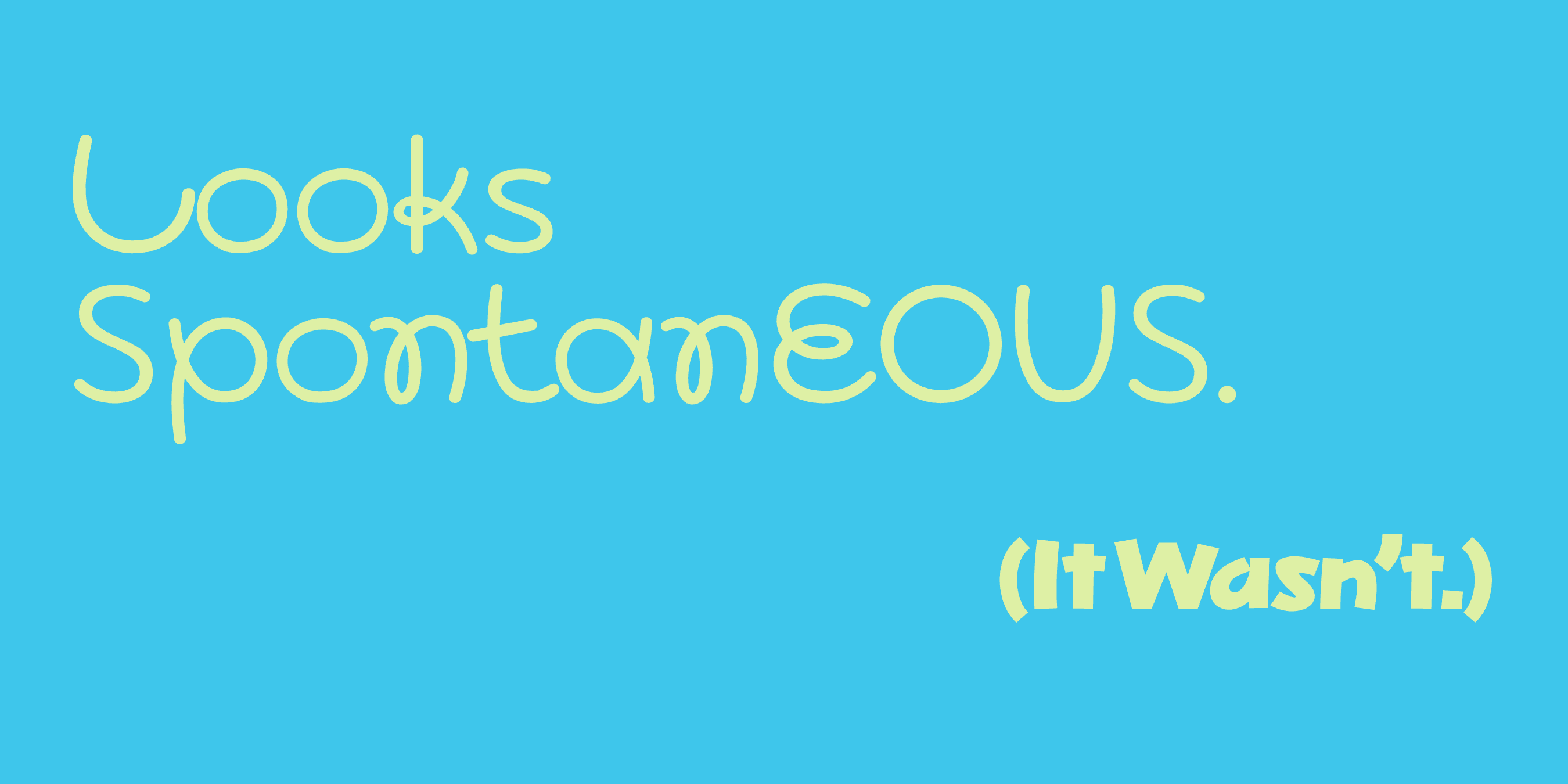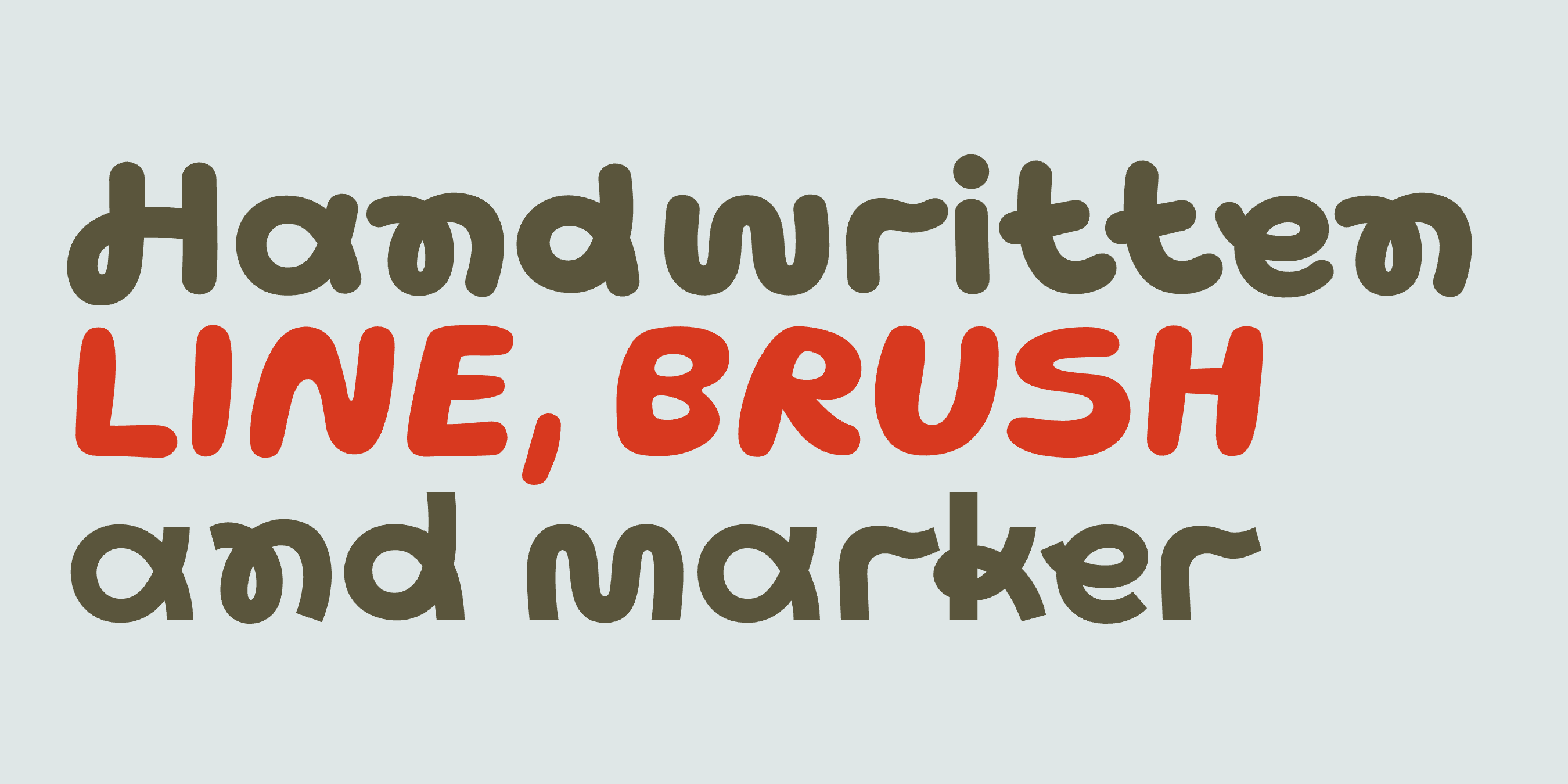
Handwritten fonts carry the mark of the hand that made them — a loop that overshoots, a stroke that thins where the pen lifted, an edge that isn’t quite straight. That irregularity is the whole point. It reads as personal in a way a geometric sans never will, which is why it keeps turning up on beauty labels, restaurant menus and founder-led brands.
“Handwritten” covers a lot of ground though, and the differences matter when you’re picking one. Below are four handwritten fonts grouped by how they were drawn — line, brush and marker — because that’s what actually determines where each one works.
What Makes A Font Handwritten?
Three things, usually in combination: strokes that vary rather than hold one width, letterforms that connect or nearly connect, and a baseline that moves. Beyond that, handwritten fonts split into families by tool:
- Line — drawn with an even-width pen. Loopy and continuous, closer to signature writing than to calligraphy.
- Brush — thick and thin follow pressure. Inky, organic, higher contrast.
- Marker — a blunt, consistent nib. Spontaneous in light weights, urban and loud in heavy ones.
Worth separating from script fonts, which descend from formal penmanship and connect by rule. Handwritten type is looser and more personal by design.
Line Style: Loopy And Continuous
1. Lace — Handwritten Line Font For Modern Lettering
Lace is a loopy typeface built for branded lettering. Its strokes stay uniform and only change with weight, so it reads handwritten without the wobble that makes some scripts hard to set. Chunky in the bolder weights, lace-like in the lighter ones — the name is literal. It suits restaurant and beauty branding that wants a personal look without giving up structure. Nine weights.
2. Lace Rounded — Friendlier, Softer, Same Skeleton
Lace Rounded takes the same loopy line and rounds the terminals. The result is warmer and more playful, and it comes with a deep set of alternates and ligatures, which matters for lettering — a wordmark usually needs one specific letter to sit differently. Made for titles and logotypes in food, wedding and kids work. Nine weights.
Brush Style: Inky And Organic
3. Skay — Handwritten Bubble Font With A Brush Feel
Skay is organic and hand-drawn with an inky brush quality, its shapes fuller and rounder than a conventional brush script. It’s all uppercase across nine weights, which keeps it firmly in logo and title territory rather than text. The soft shapes suit beauty and fashion labels — the comfortable, unfussy end of that market rather than the polished end.
Marker Style: Spontaneous And Energetic
4. Quik — Marker Font For Crafts, Food And Sports
Quik uses modern marker-style letters with real energy in the stroke. Light weights feel spontaneous and organic; heavy weights turn urban and loud. Unusually for a handwritten face it holds up in both upper and lowercase and stays legible in body copy, so it can carry a whole identity rather than just the logo.
How To Choose
Start from the job, not the look:
- Wordmark or logotype — Lace or Lace Rounded. The alternates let you tune individual letters, which is most of the work in lettering.
- Packaging and labels — Skay. Uppercase-only is a constraint that works in your favour on a small panel.
- A whole identity, including text — Quik. It’s the one that survives at small sizes.
One practical note: handwritten type is set loose by nature, so give it room. Tight tracking fights the letterforms, and the irregularity that makes it feel personal turns into noise when the words are crowded.
Free Handwritten Fonts
If you’re testing a direction before committing, Google Fonts carries a few reasonable starting points — Caveat, Kalam and Shadows Into Light among them. They’re fine for mockups. Where they tend to fall short is weight range and alternates, which is exactly what you need once a logo goes from sketch to final.